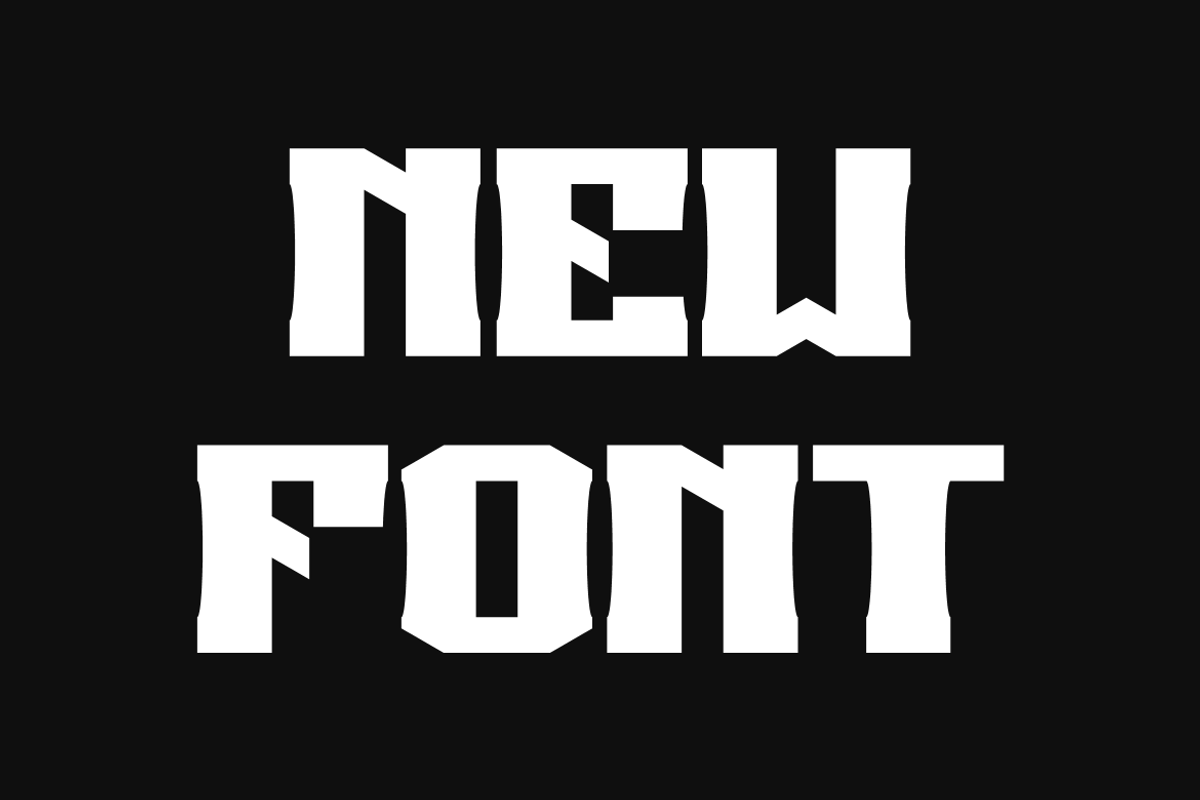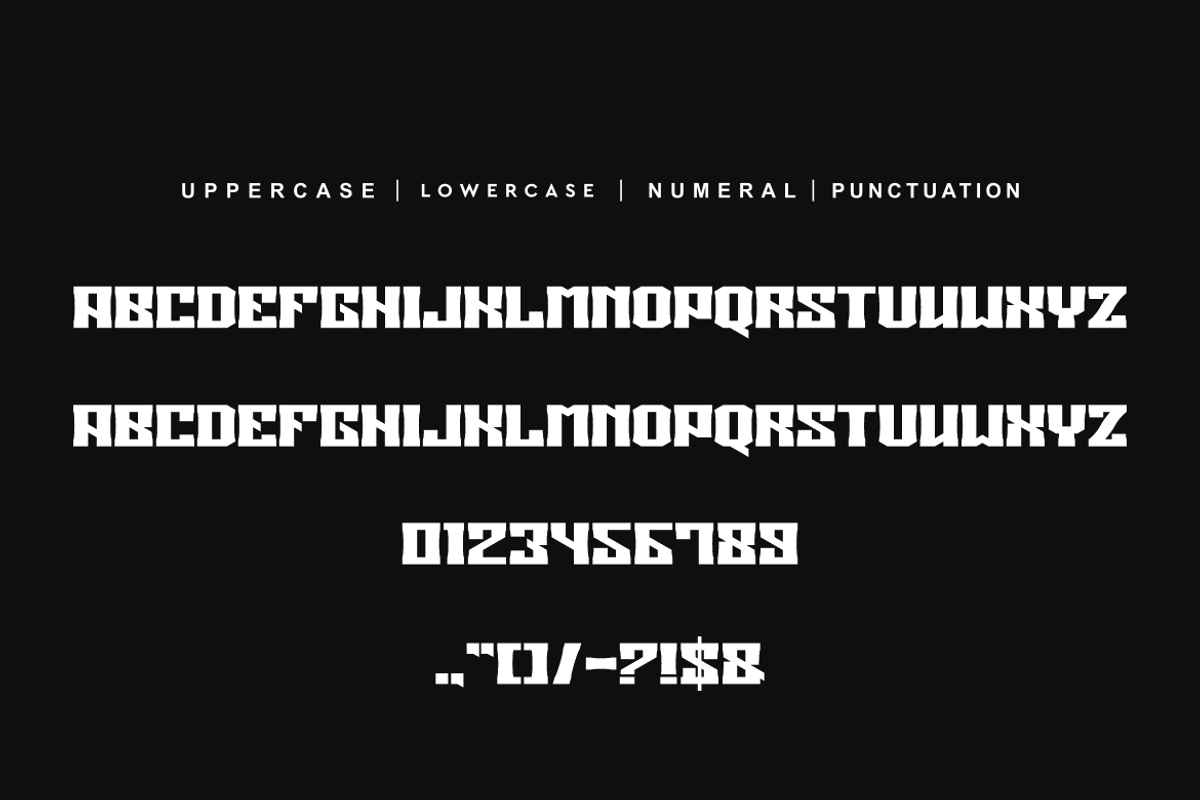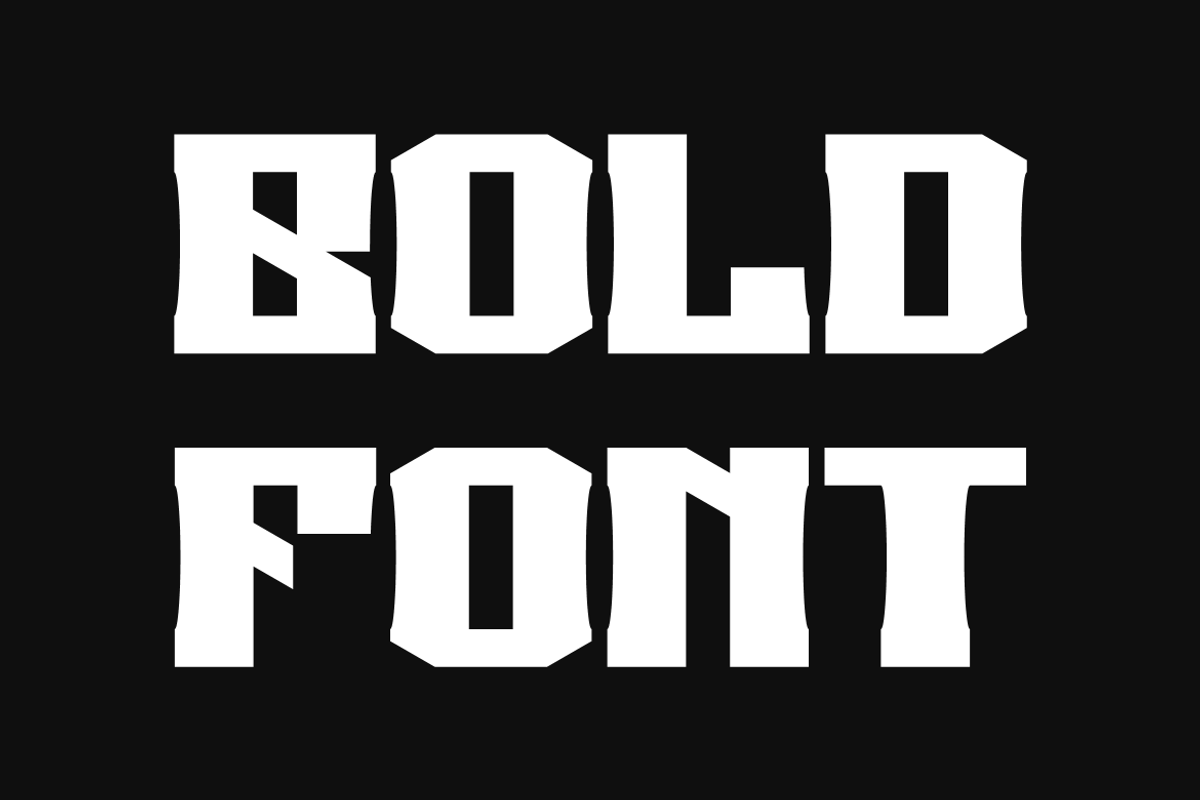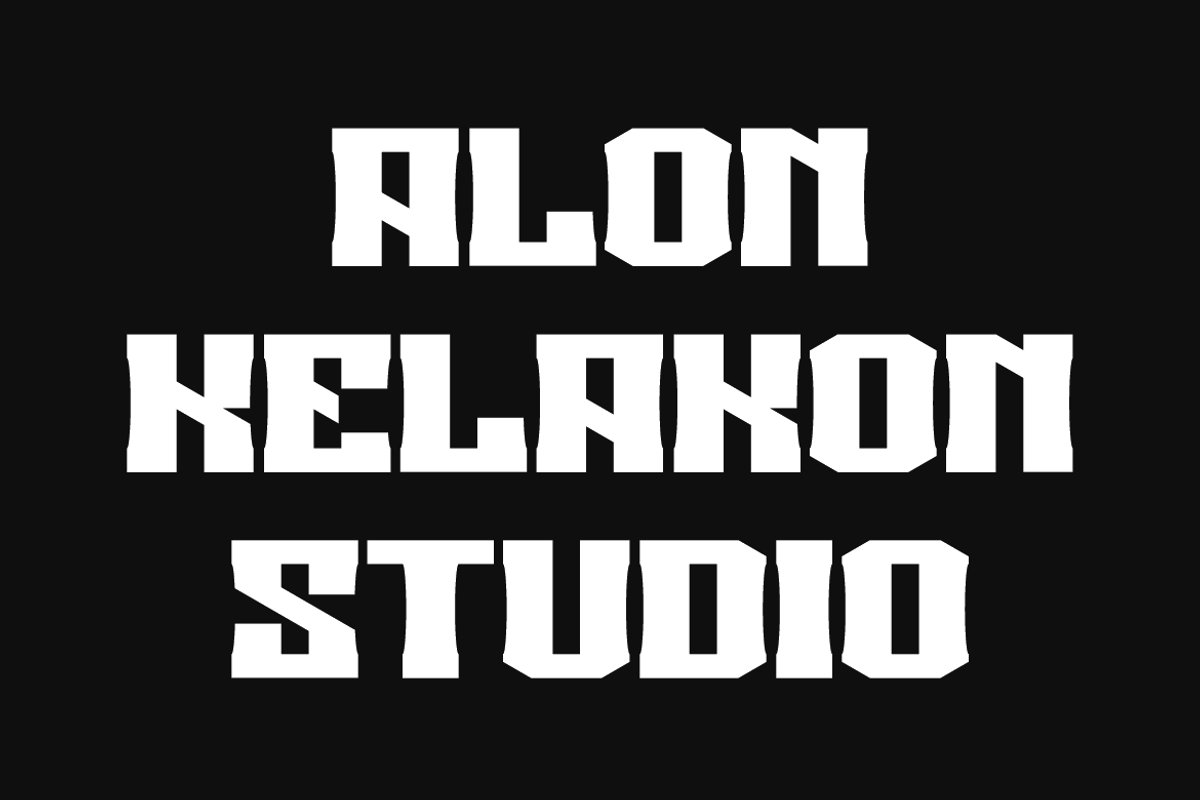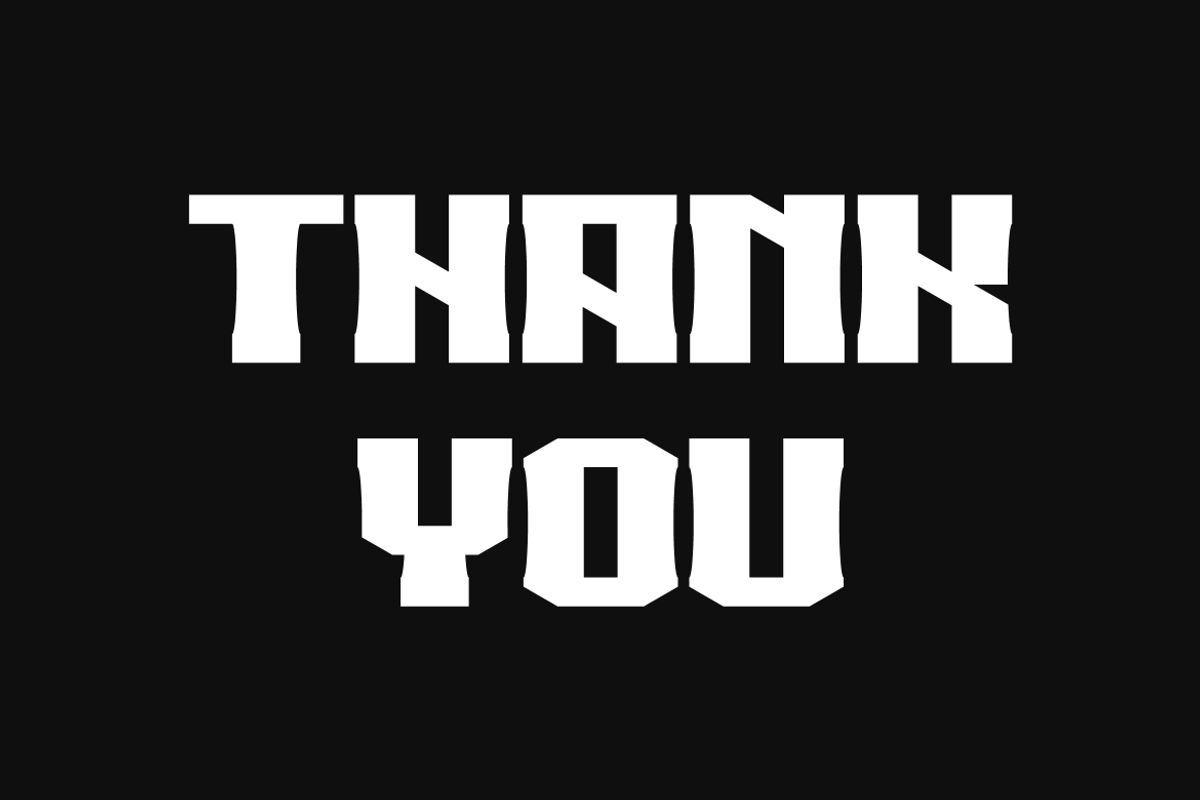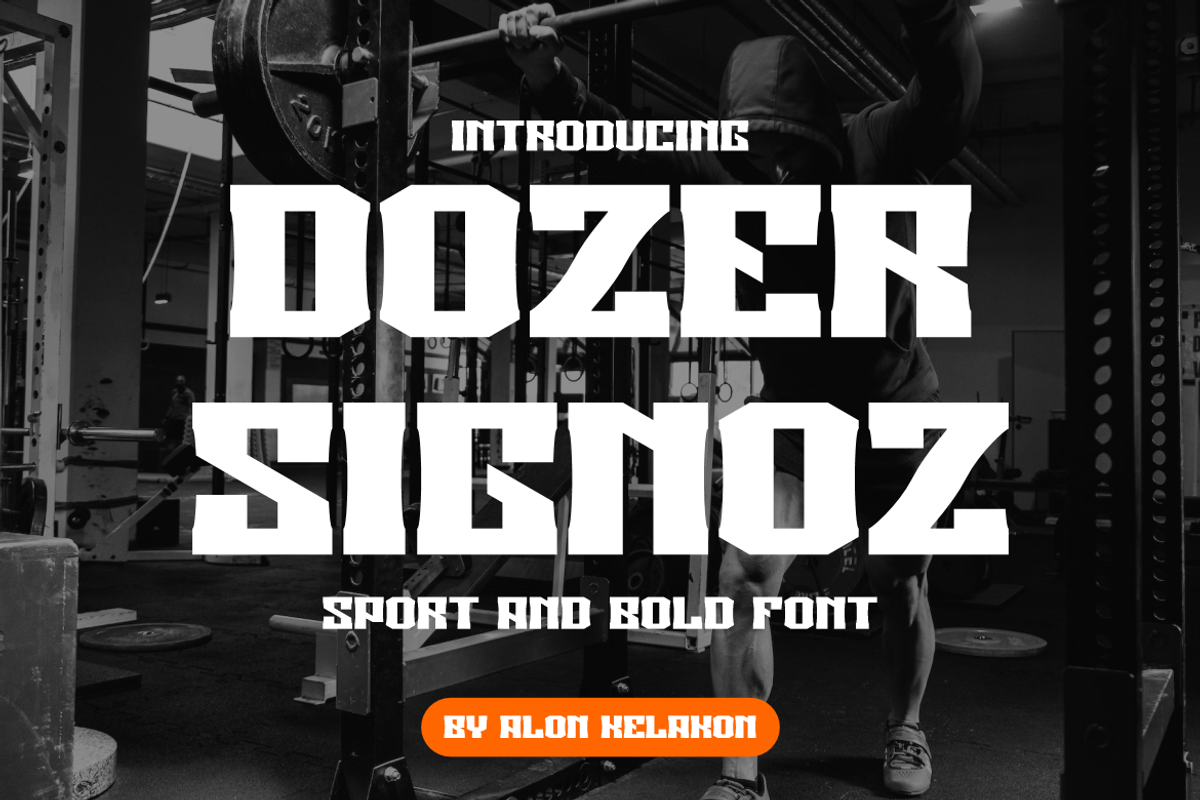
Dozer Signoz
Grimstroke Font is unique . Ready to use for your design like labeling, movie sceen, poster, movie title, gigs, album covers, logos, and much more.